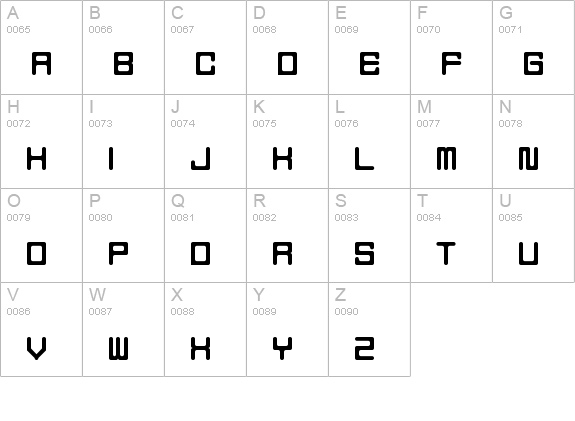
Holodeck5 Font Details
Holodeck5 is a modern and futuristic display font that will transport your designs into a realm of innovation and creativity. With its sleek lines and sharp edges, this font exudes a sense of sophistication and cutting-edge style. Whether you are creating a logo, poster, or website design, Holodeck5 will make a bold statement and captivate your audience. What sets Holodeck5 apart is not just its striking appearance, but also its versatility. This font can be used for a wide range of design projects, from tech-related branding to sci-fi inspired artwork. Its bold and dynamic presence will ensure that your message stands out and leaves a lasting impression. And the best part? Holodeck5 is completely free to download at FontsMarket.com. Yes, you read that right - you can access this innovative font at no cost and take your designs to the next level without breaking the bank. So why wait? Download Holodeck5 today and elevate your creative projects with a touch of futuristic flair.